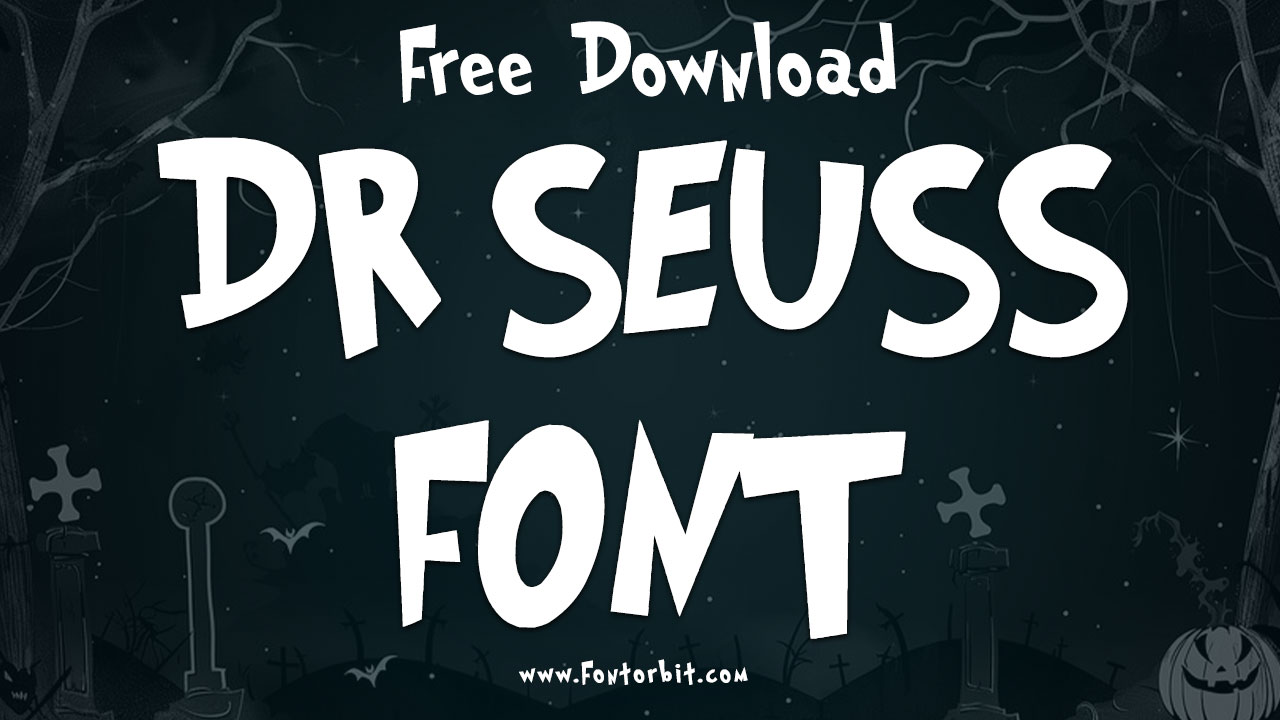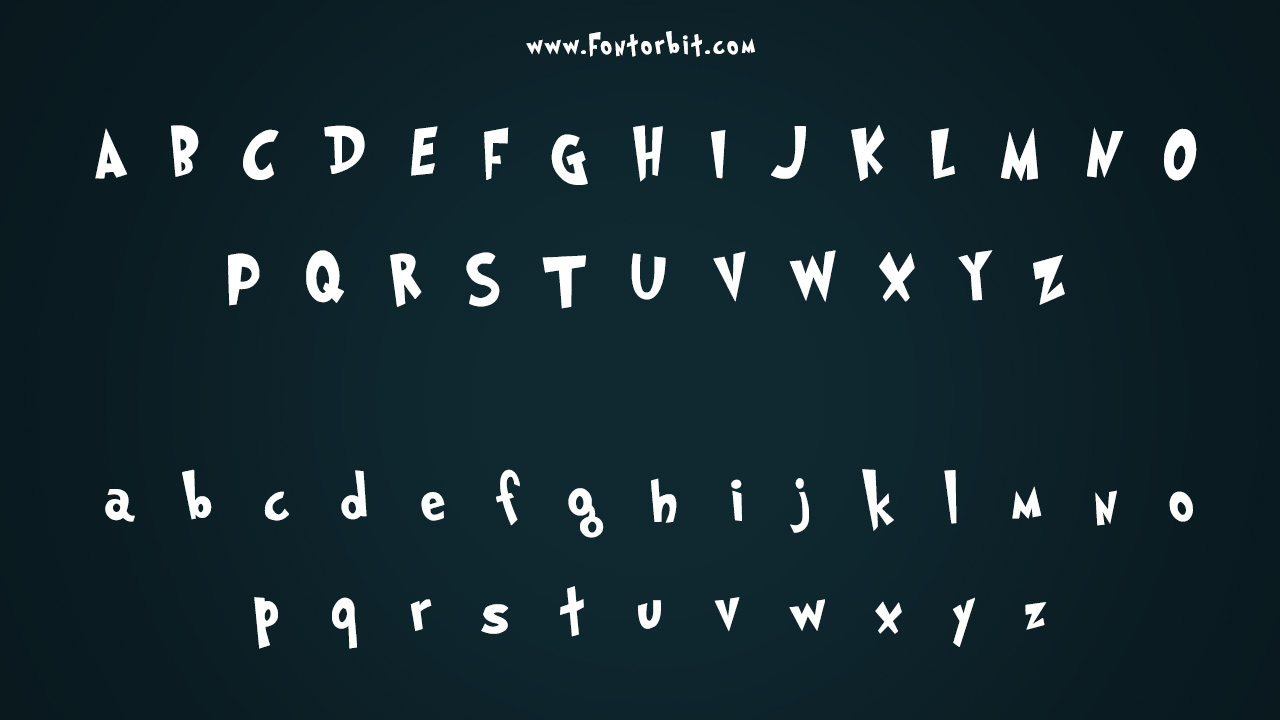
Dr Seuss Font is a whimsical, playful font inspired by the beloved works of Dr. Seuss. This fancy typeface exudes a quirky charm and is perfect for adding a touch of fun and imagination to any project.
Dr Seuss Font brings a distinctive, hand-drawn style that creates an instant sense of nostalgia and creativity. Its whimsical nature makes it the ideal choice for projects aiming to invoke a playful spirit. The font family includes:
- Dr Seuss Bold
- Dr Seuss Extra Bold
- Dr Seuss Light
The playful, quirky style of Dr Seuss Font makes it perfect for a variety of creative and commercial projects. The font’s unique look is well-suited for injecting fun and creativity into any design, making it an ideal choice for:
- Children’s Books
- Event Invitations
- Cartoon and Animation
Dr Seuss Font can frequently be found in design projects that seek a whimsical, creative feel. Whether used for headings or large pieces of text, its quirky nature ensures that designs will grab attention and make a lasting impression.
Dr Seuss Font brings a sense of imagination and fun to any project. Its quirky, hand-drawn aesthetic adds personality and playfulness to headings, posters, branding, and children’s materials.
This font pairs beautifully with simpler, more modern typefaces for a balanced look, making it a versatile choice for many design applications.
Due to its playful and decorative style, Dr Seuss Font is better suited for headings, titles, or short pieces of text. Its unique design may be less legible in long paragraphs.
Dr Seuss Font stands out for its playful, hand-drawn style inspired by Dr. Seuss’s whimsical world. Unlike many other fancy fonts, it has a nostalgic, imaginative charm that appeals to both children and adults.
Dr Seuss Font is commonly used in children’s books, event invitations, posters, branding, and playful designs that need a quirky touch.
Dr Seuss Font focuses on playful creativity and visual engagement. Its hand-drawn aesthetic adds a sense of fun and excitement to any design.
While the font doesn’t come with a specific color palette, it works best with bright, vibrant colors that enhance its playful and whimsical style. Contrasting colors help to make the font pop in designs.